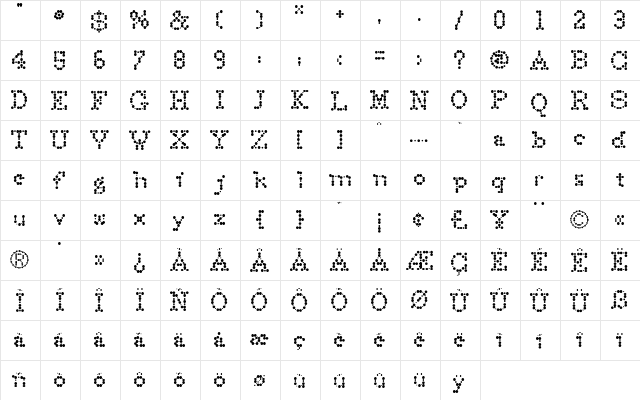
Dot Normal
Design Context for Dot Typeface
Dot is rooted in pixel-grid construction, making it a natural fit for game UI, retro computing aesthetics, and digital nostalgia projects.
A natural choice for retro game titles, chiptune music branding, 8-bit UI, and digital nostalgia projects.
Pro Tip: Pair Dot with flat colour palettes and simple geometric UI elements to reinforce its digital aesthetic.